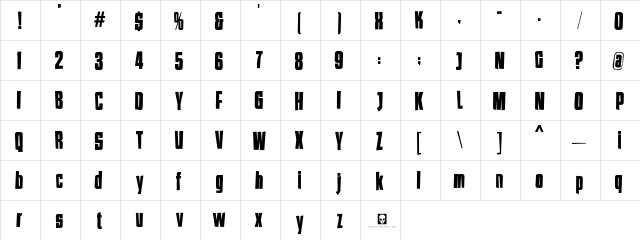
LHF Tallington Traditional Regular
| Foundry | Arthur Vanson for Letterhead Fonts |
Design Context for LHF Tallington Traditional Typeface
LHF Tallington Traditional is a composed and adaptable typeface that performs quietly and consistently across a wide range of design contexts.